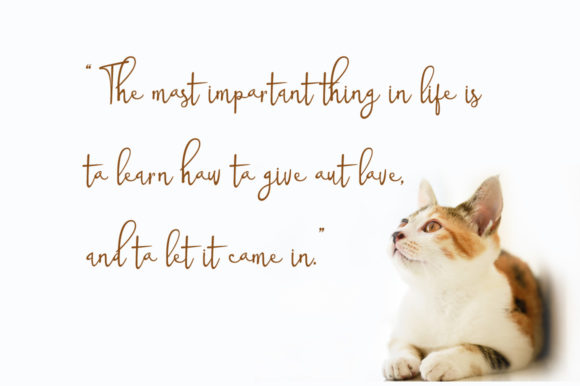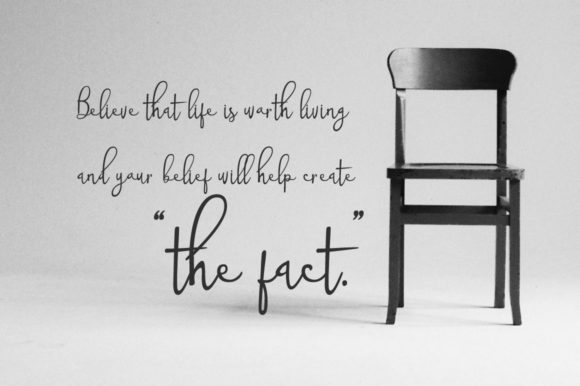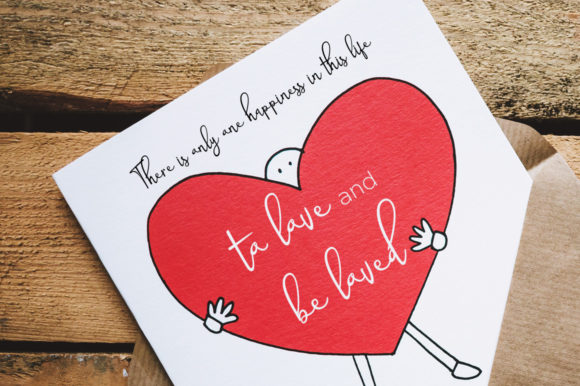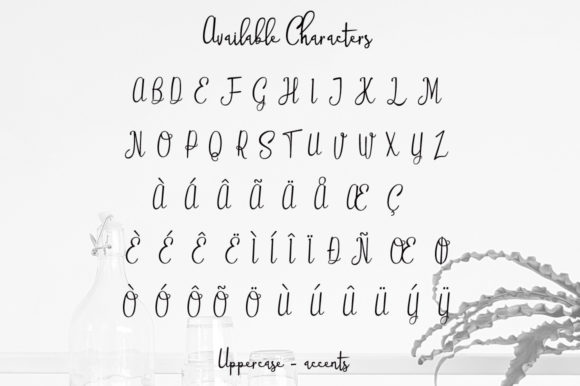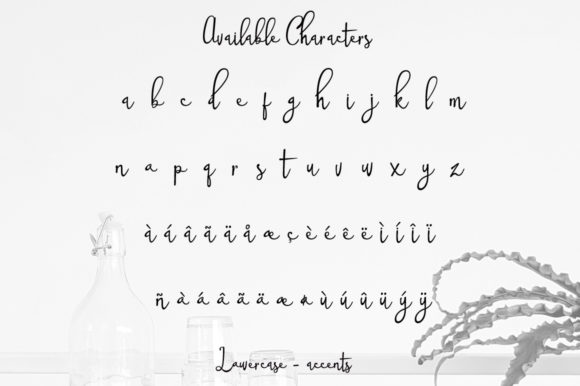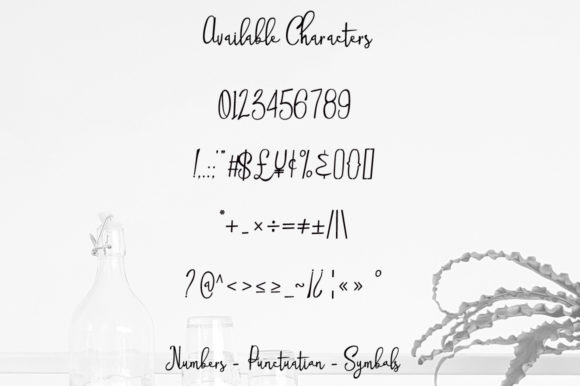
Gifloyr Font: The Ultimate Handwritten Script for Your Creative Projects
Are you looking for a beautiful, authentic handwritten script font to elevate your creative projects? Look no further than Gifloyr Font! This stunning font is perfect for designers and crafters who want to add a touch of elegance and sophistication to their work. In this article, we’ll dive into the world of Gifloyr Font and explore its features, uses, and benefits.
What is Gifloyr Font?
Gifloyr Font is a beautiful handwritten script font that exudes an authentic feel. Its unique and elegant lettering style makes it perfect for a wide range of creative projects, from wedding invitations and stationary art to social media posts and greeting cards. With Gifloyr Font, you can add a personal touch to your designs and make them stand out from the crowd.
Features of Gifloyr Font
Gifloyr Font comes with a range of features that make it a versatile and user-friendly font. Some of its key features include:
- Authentic handwritten style: Gifloyr Font has a genuine handwritten look that adds a touch of warmth and personality to your designs.
- Elegant lettering: The font features elegant lettering with flowing curves and precise lines, making it perfect for creating beautiful and sophisticated designs.
- Easy to read: Despite its ornate style, Gifloyr Font is easy to read, making it perfect for use in body text and captions.
- Multilingual support: Gifloyr Font supports multiple languages, making it a great choice for designers and crafters who work with international clients.
Uses of Gifloyr Font
Gifloyr Font is a versatile font that can be used for a wide range of creative projects, including:
- Wedding invitations: Gifloyr Font is perfect for creating beautiful and elegant wedding invitations that set the tone for a special day.
- Stationary art: Use Gifloyr Font to create stunning stationary art, including greeting cards, thank you cards, and postcards.
- Social media posts: Add a touch of elegance to your social media posts with Gifloyr Font, making them stand out in a crowded feed.
- Greeting cards: Gifloyr Font is perfect for creating cute and personalized greeting cards for special occasions.
Benefits of Using Gifloyr Font
There are many benefits to using Gifloyr Font in your creative projects, including:
- Unique and authentic look: Gifloyr Font adds a unique and authentic touch to your designs, setting them apart from others.
- Elegant and sophisticated: The font’s elegant and sophisticated style makes it perfect for creating high-end designs.
- Time-saving: With Gifloyr Font, you can create stunning designs in no time, saving you time and effort.
Tips for Using Gifloyr Font
Here are some tips for getting the most out of Gifloyr Font:
- Use it sparingly: Use Gifloyr Font sparingly to add emphasis and create visual interest in your designs.
- Pair it with other fonts: Pair Gifloyr Font with other fonts to create a unique and visually appealing combination.
- Experiment with colors: Experiment with different colors and textures to add depth and interest to your designs.
- Pay attention to spacing: Pay attention to spacing and kerning to ensure that your text is easy to read and visually appealing.
Gifloyr Font is a beautiful handwritten script font that is perfect for designers and crafters who want to add a touch of elegance and sophistication to their creative projects. With its authentic feel, elegant lettering, and easy-to-read style, Gifloyr Font is a versatile font that can be used for a wide range of applications. Whether you’re creating wedding invitations, stationary art, social media posts, or greeting cards, Gifloyr Font is a great choice. So why not give it a try and see the difference it can make in your designs?